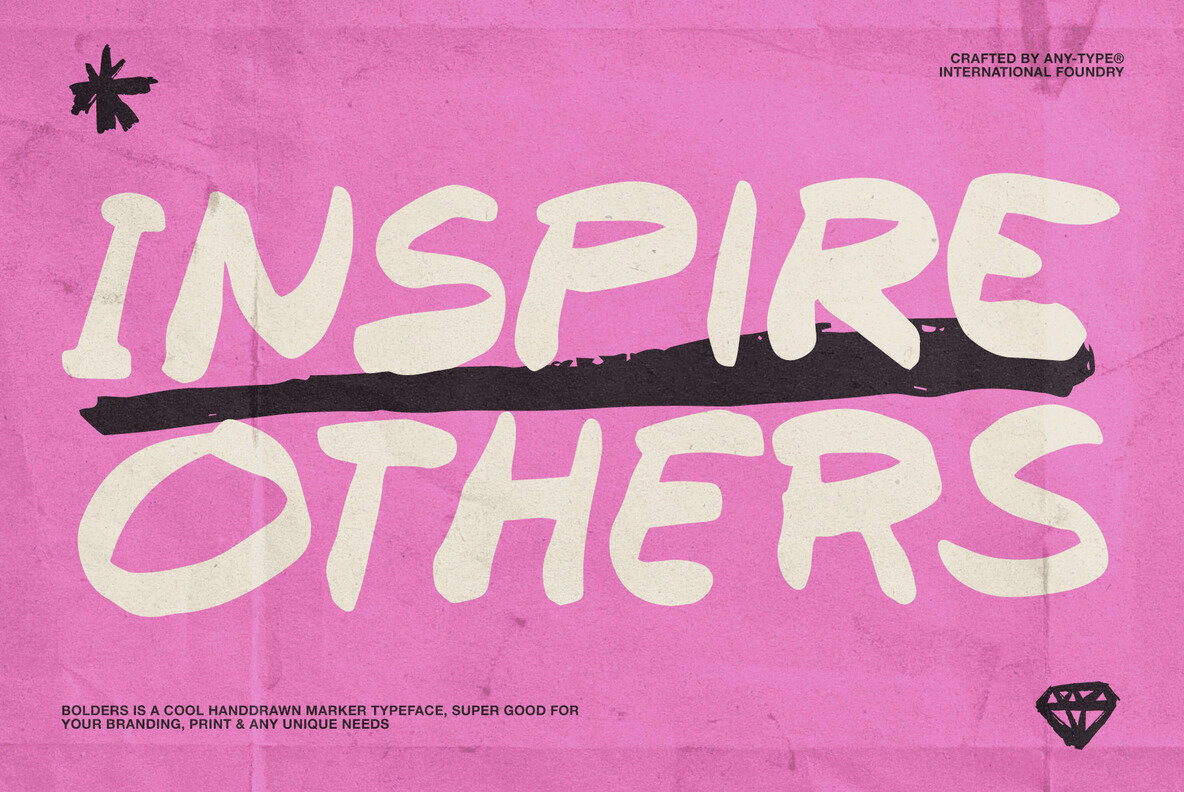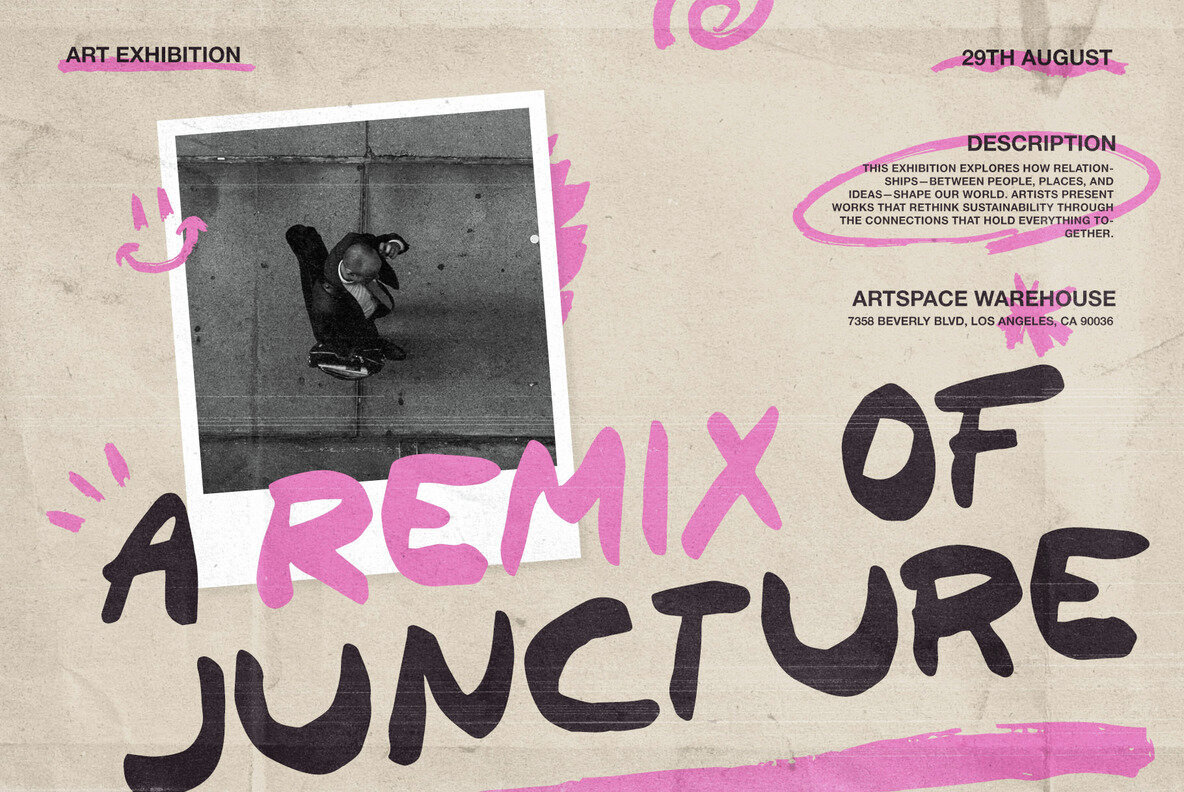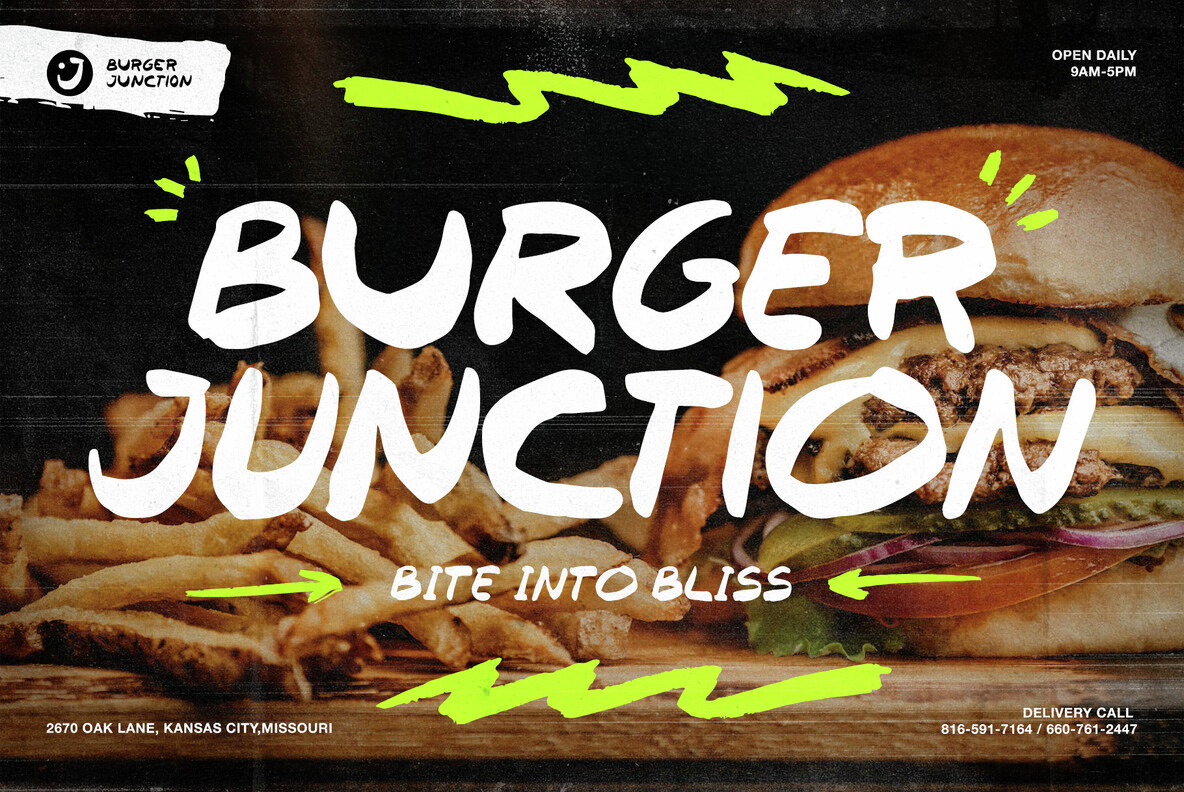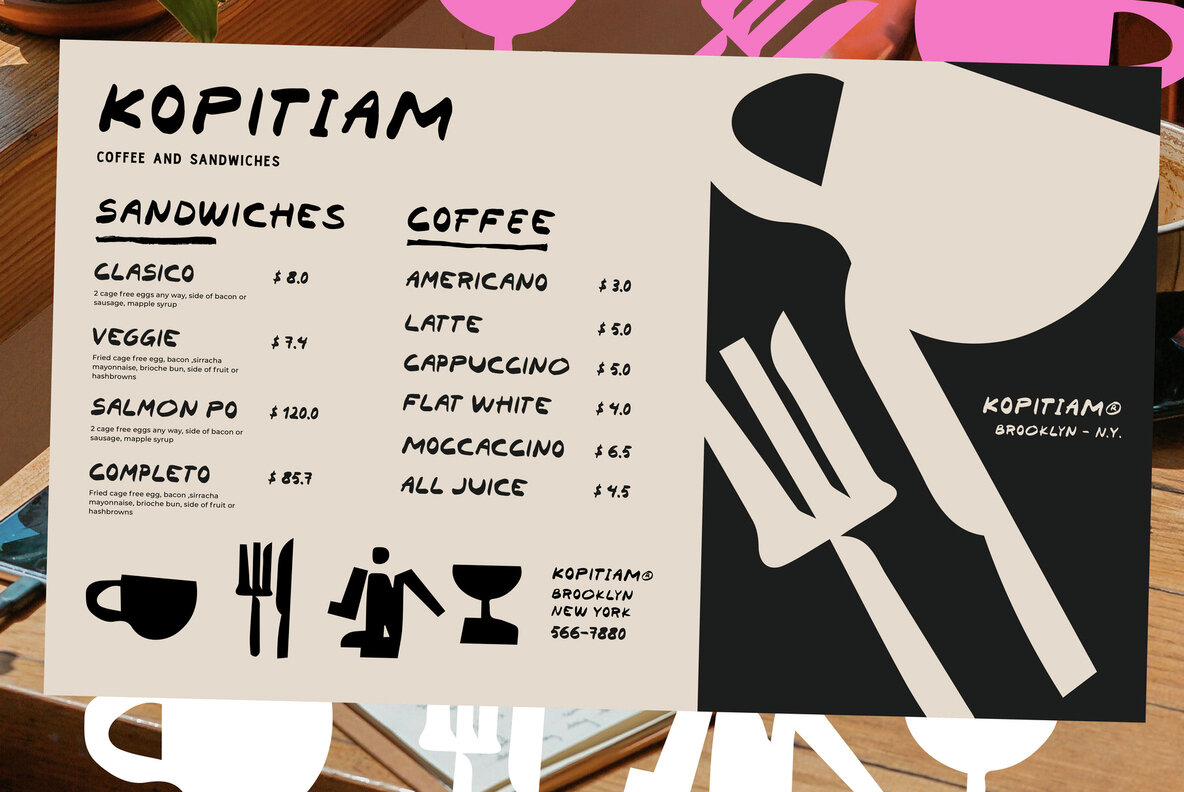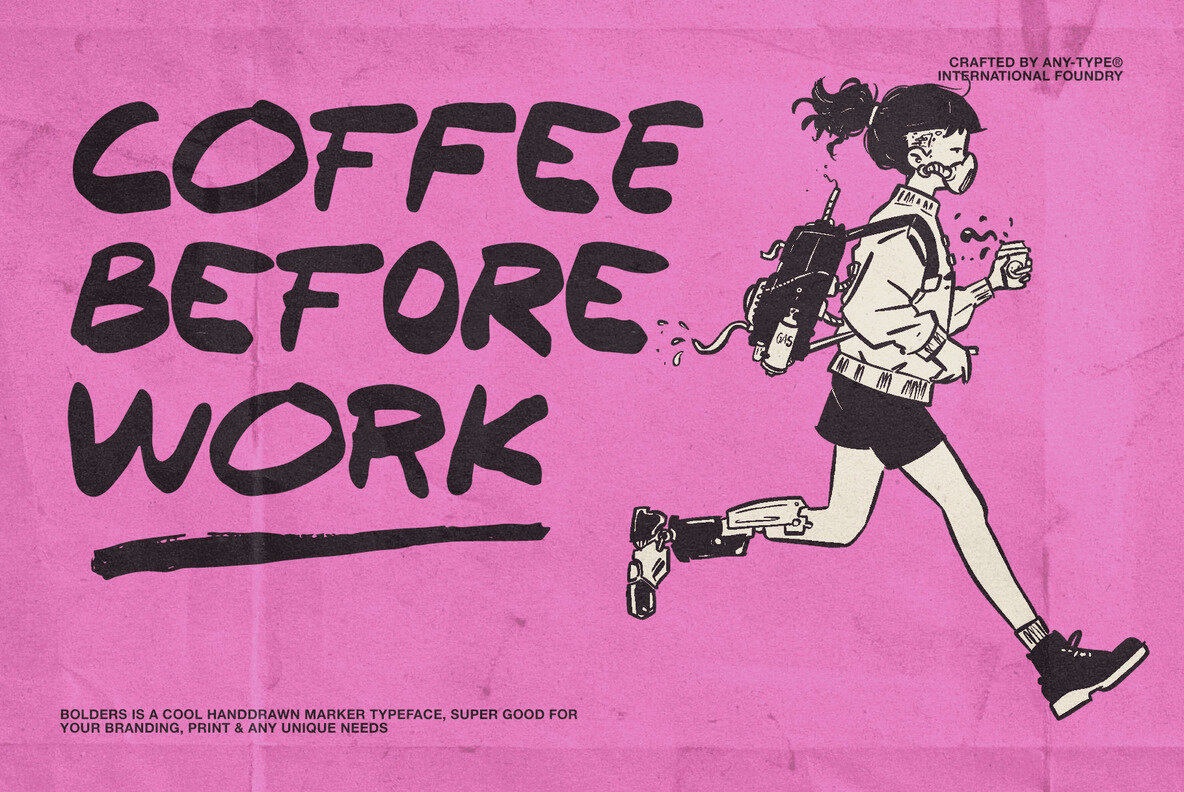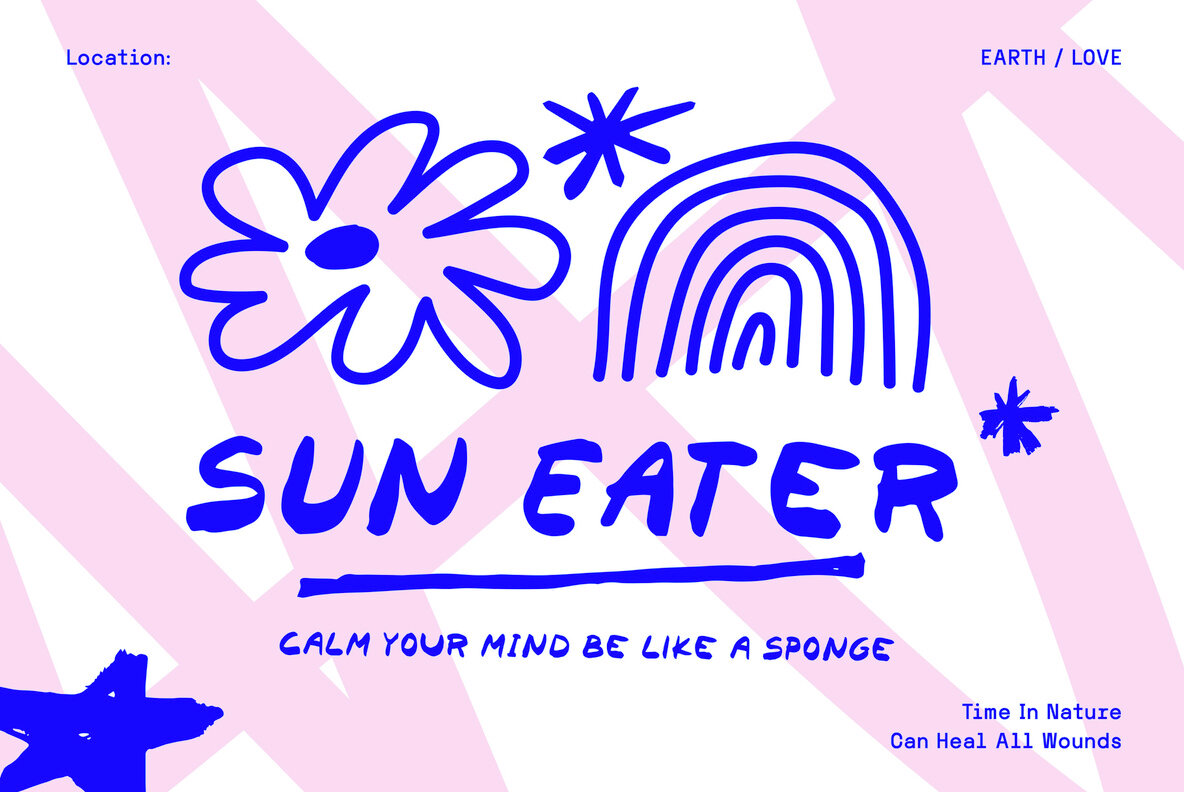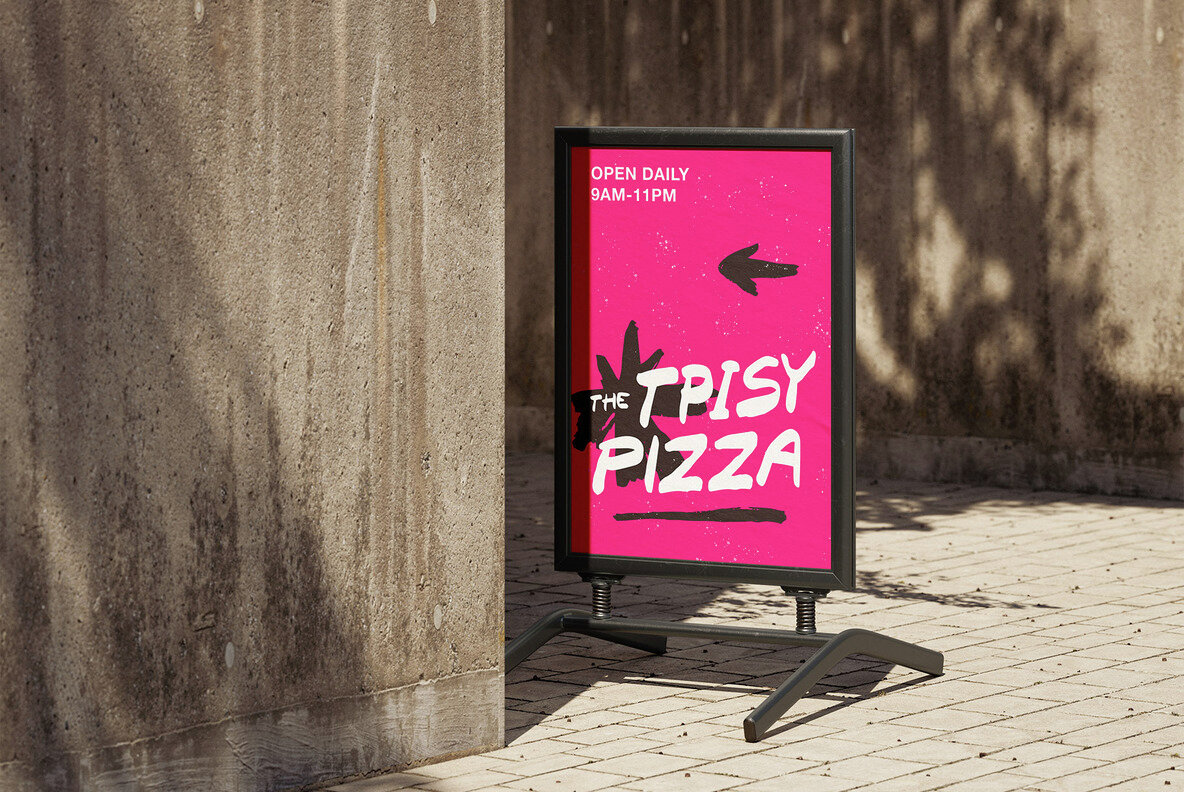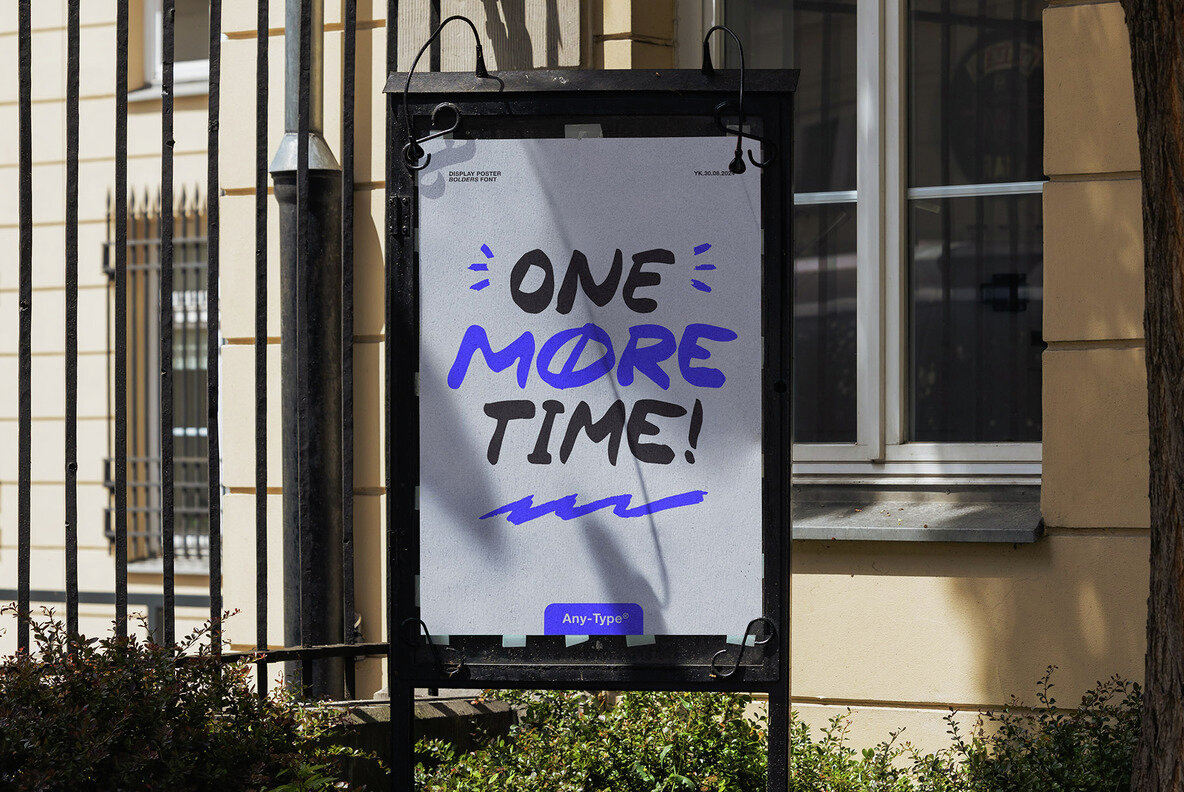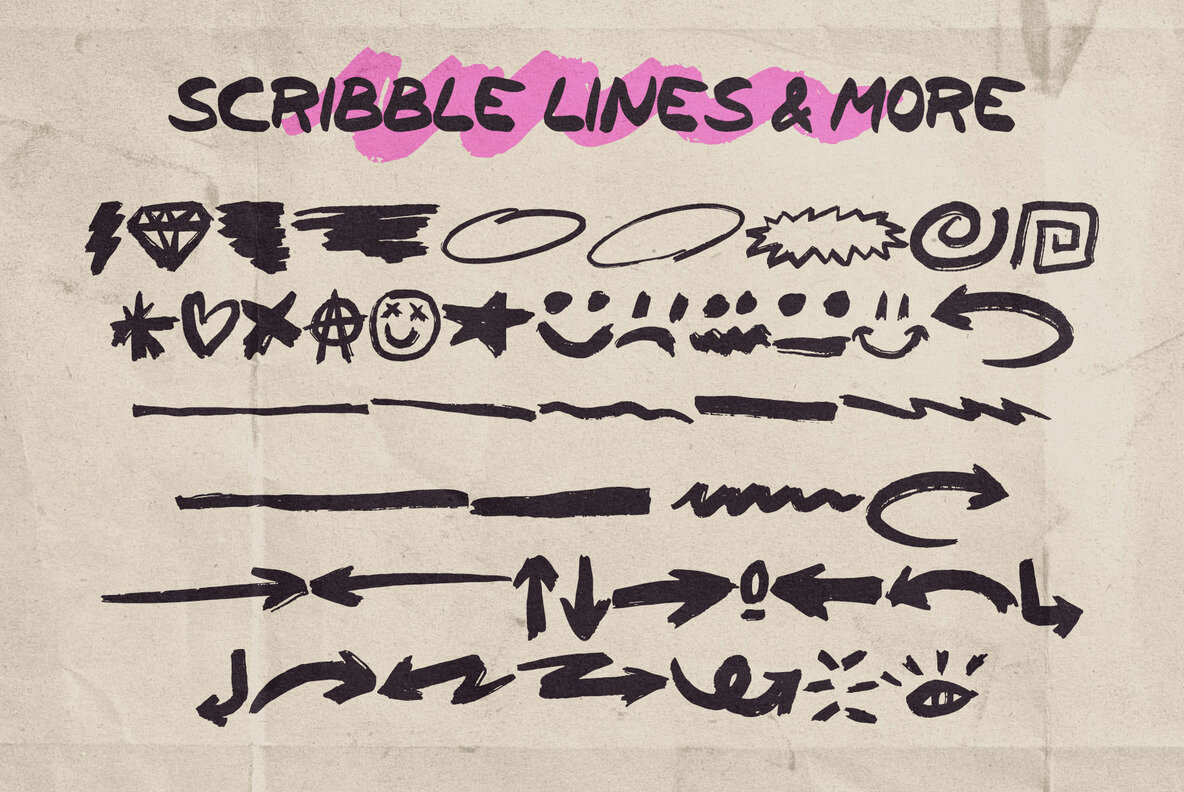
Bolders Font
Bolders is a hand-drawn vintage font that brings an authentic western touch to your designs. Its handwritten style is perfect for projects that need a unique and personal flair. This versatile typeface excels in both online and offline applications, making it ideal for posters, logos, and social media posts.
Bolders comes with multilingual support and includes a set of bonus doodles to enhance your creative projects. Whether you are aiming for a classic western look or simply adding a handcrafted element to your design, this font delivers results that stand out.